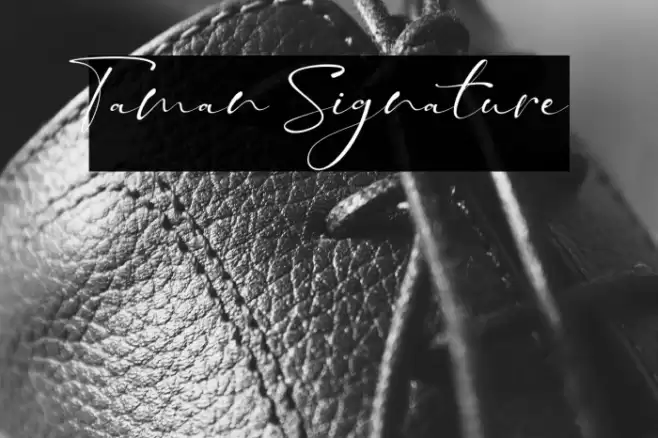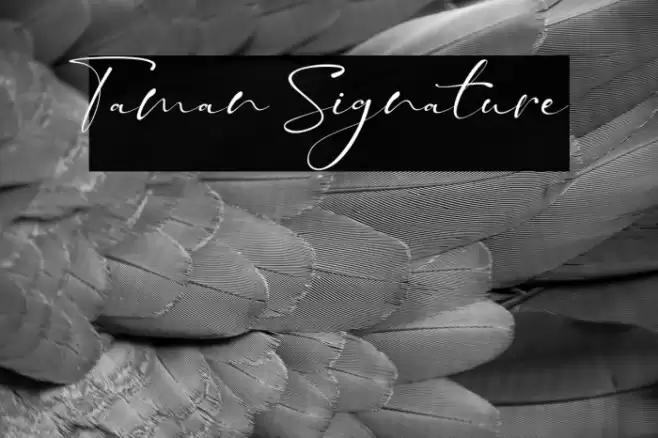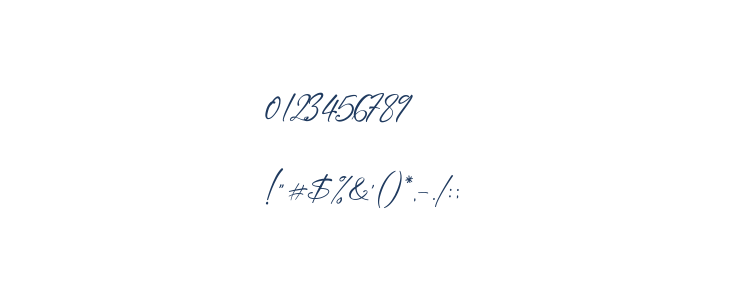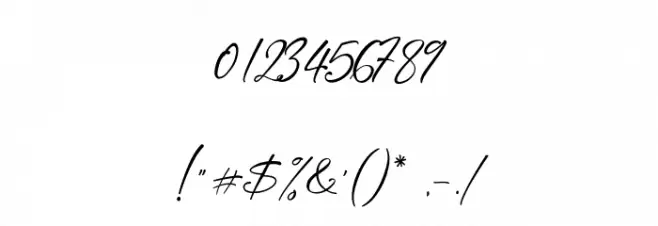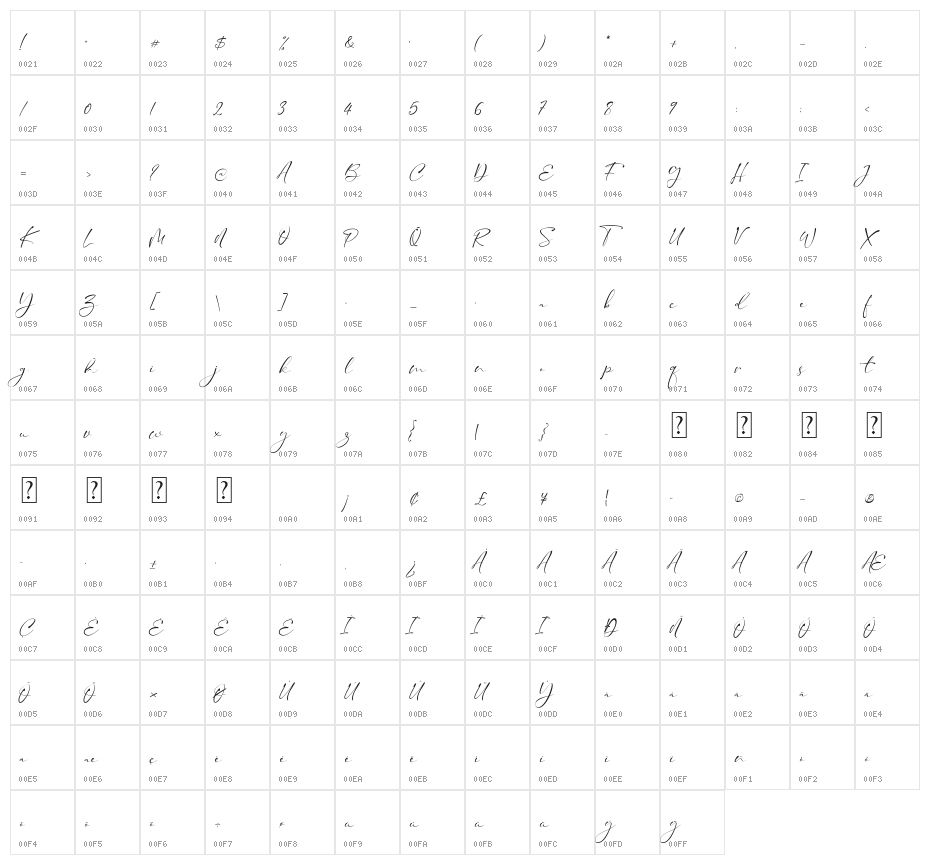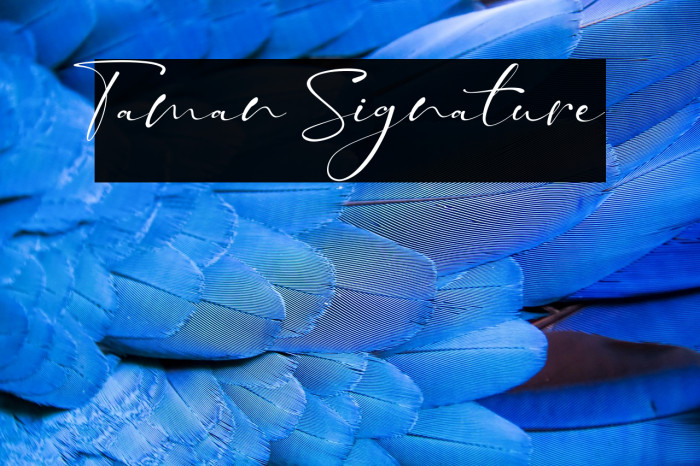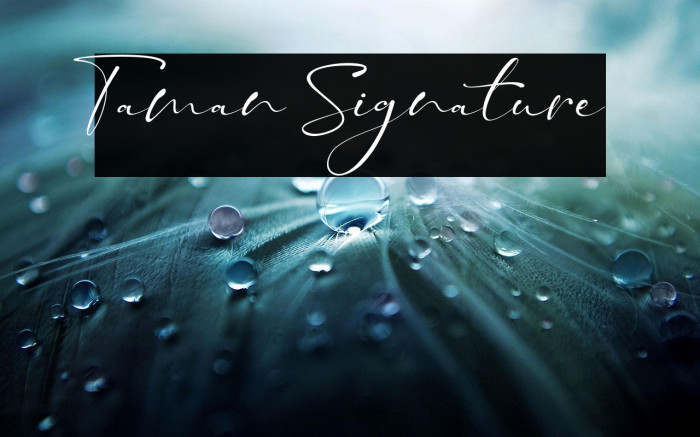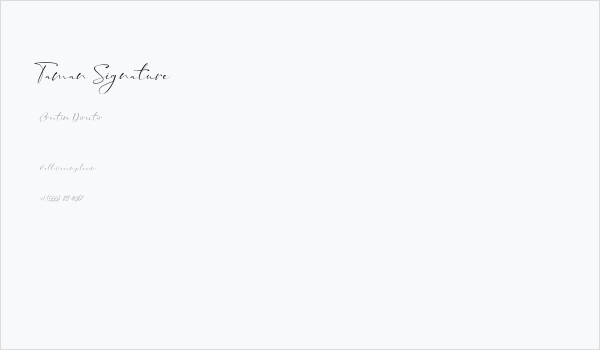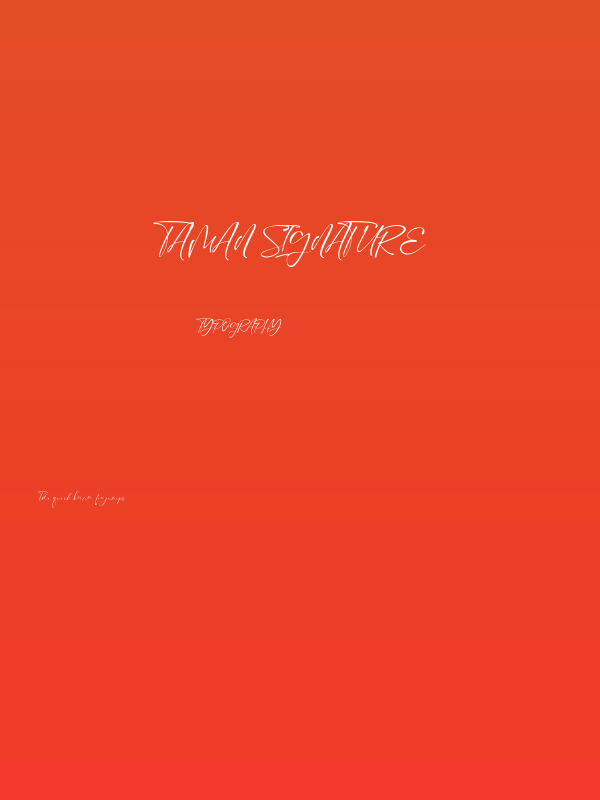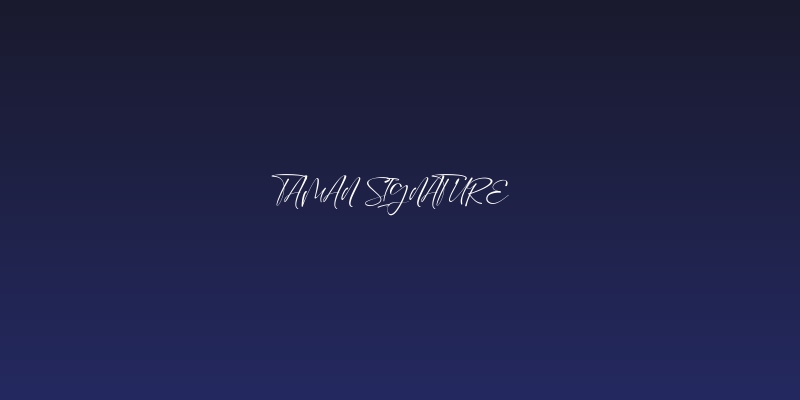
Taman Signature Font
Taman Signature Description
This elegant script font exudes a sense of sophistication and fluidity, characterized by its flowing, cursive letterforms. The strokes are smooth and connected, giving it a handwritten appearance that is both stylish and personal. The uppercase letters are bold and prominent, while the lowercase letters maintain a delicate balance with their graceful curves. The numerals and special characters are designed to complement the overall aesthetic, ensuring consistency throughout. This font is perfect for projects that require a touch of elegance and personalization, such as invitations, branding, and logos.
An elegant, flowing script font with a sophisticated, handwritten style from Regular fonts.
- Proposed Projects: Ideal for wedding invitations, personal branding, elegant logos, and stationery design.
- Overall Style: Elegant, Handwritten
- Use Case: Logos, Invitations, Branding